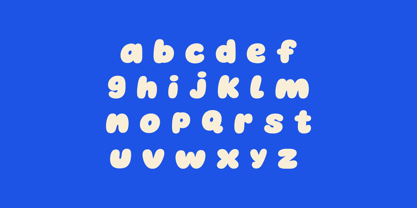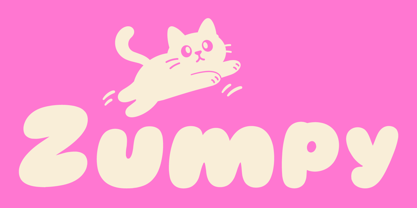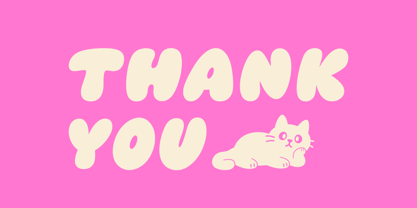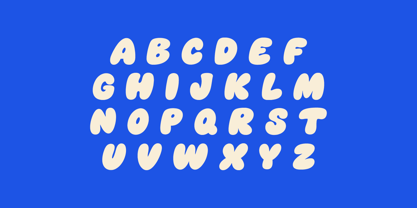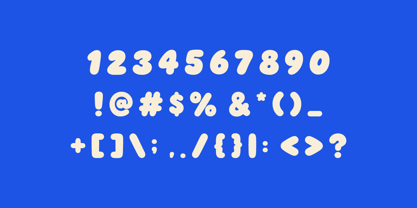
Zumpy
por Ezinxo Foundry
La familia tipográfica Zumpy fue diseñada por Tegar Puji Bachtiar y publicada por Ezinxo Foundry. Zumpy contiene 1 estilos. Más información sobre esta familia
Zumpy is a playful and chunky display typeface created to bring a cheerful, friendly, and expressive personality to your designs. With its bold rounded shapes, soft curves, and fun organic details, Zumpy is perfect for creating eye-catching headlines, colorful branding, packaging, posters, stickers, social media graphics, children’s projects, and other creative designs. Whether you are making something sweet, silly, energetic, or simply full of personality, Zumpy adds a warm and joyful touch that makes every word feel more fun.
Diseñadores: Tegar Puji Bachtiar
Fundición: Ezinxo Foundry